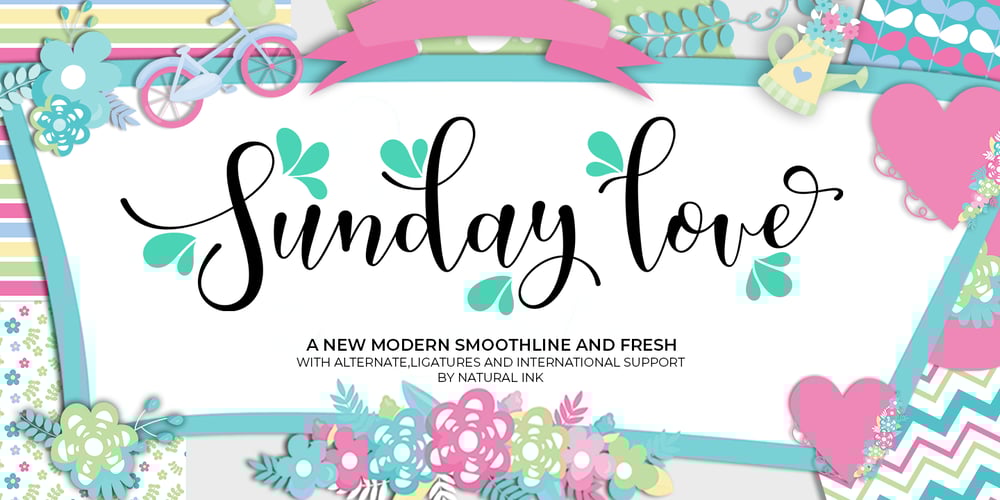
Sunday Love Font Family was designed by Arif Gunawan and published by Natural Ink. Sunday Love contains 1 styles and family package options. Sunday love is a modern script. This font is casual and beautiful with swashes and can be used for various purposes such as logos, product packaging, wedding invitations, branding, headlines, signage, labels, signatures, book covers, posters, quotes, and more. Sunday Love includes a change in the OpenType language style, binding and international support for most Western languages. To activate the OpenType Stylistic alternative, you need a program that supports OpenType features such as Adobe Illustrator CS, Adobe Indesign & CorelDraw X6-X7, Microsoft Word 2010 or newer versions. How to access all alternative characters using Adobe Illustrator: https://www.youtube.com/watch?v=XzwjMkbB-wQ Sunday Love is coded with PUA Unicode, which allows full access to all additional characters without having to design special software. Mac users can use the Font Book, and Windows users can use Character Map to view and copy one of the additional characters to insert into your favorite text editor / application. How to access all alternative characters, using Windows Character Map with Photoshop: https://www.youtube.com/watch?v=Go9vacoYmBw If you need help or have questions, please let me know. I am happy to help ๐ Thank you & Congratulations on Designing!